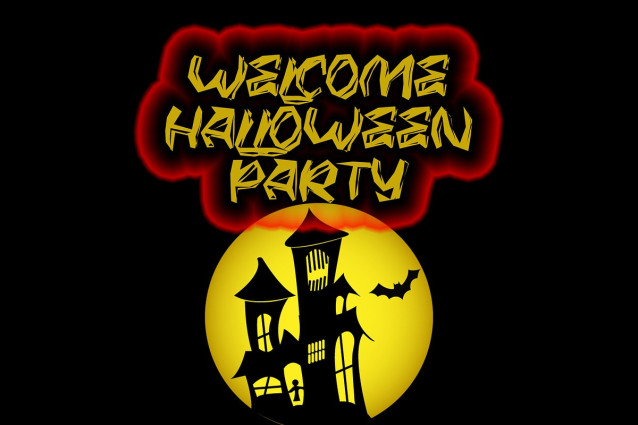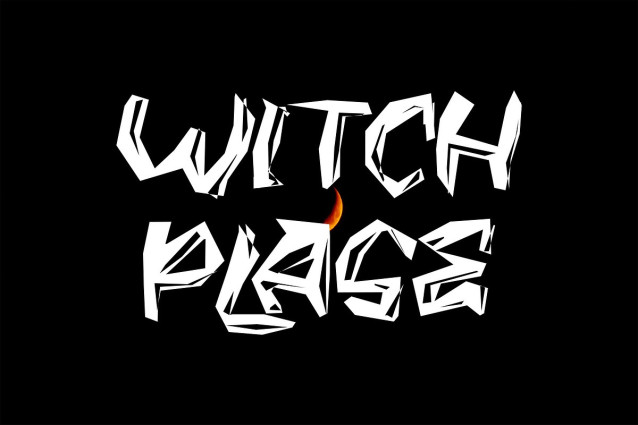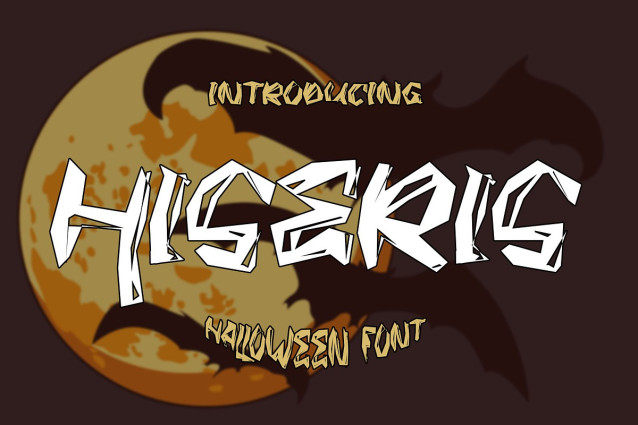
Hiseris Halloween Horror Font
Hiseris Halloween Horror Font is a horror Halloween themed font with a very unique shapes character. This font is perfect for Halloween cards and Halloween banner designs. This font is suitable for making previews and covers, horror logo designs, shirt designs, and other horror graphic needs.